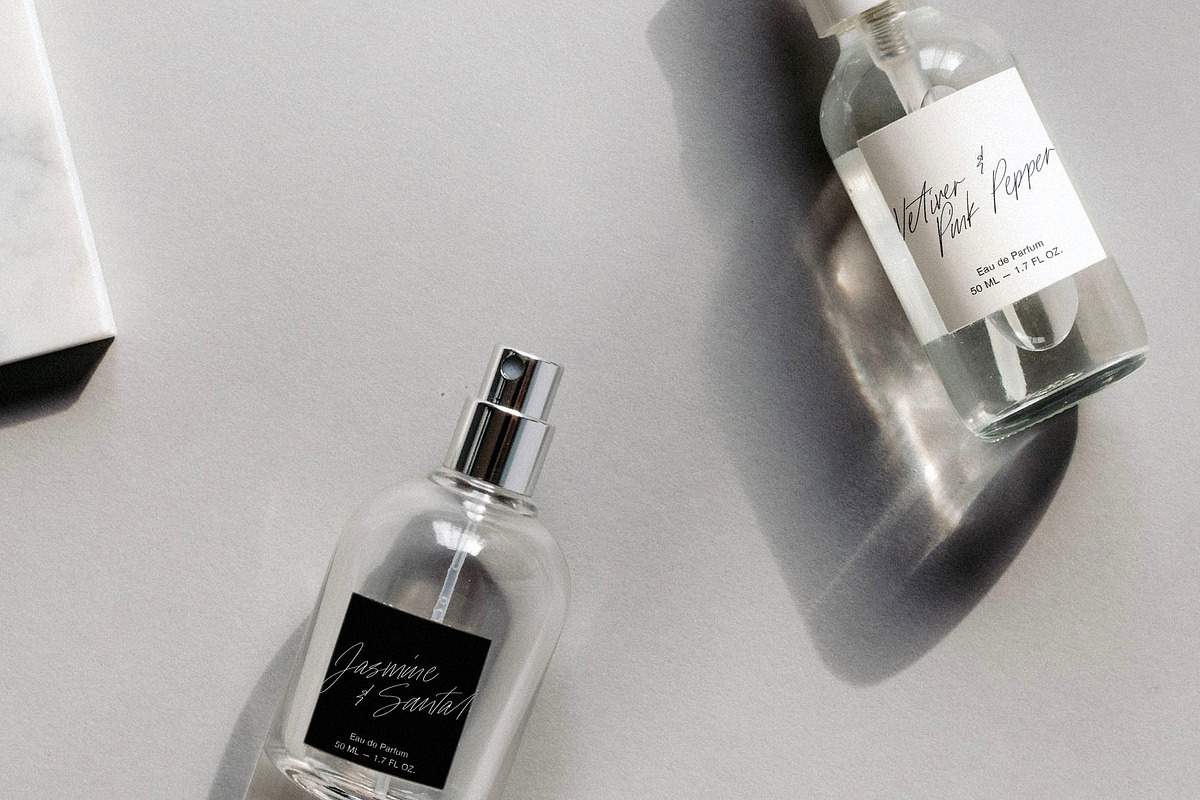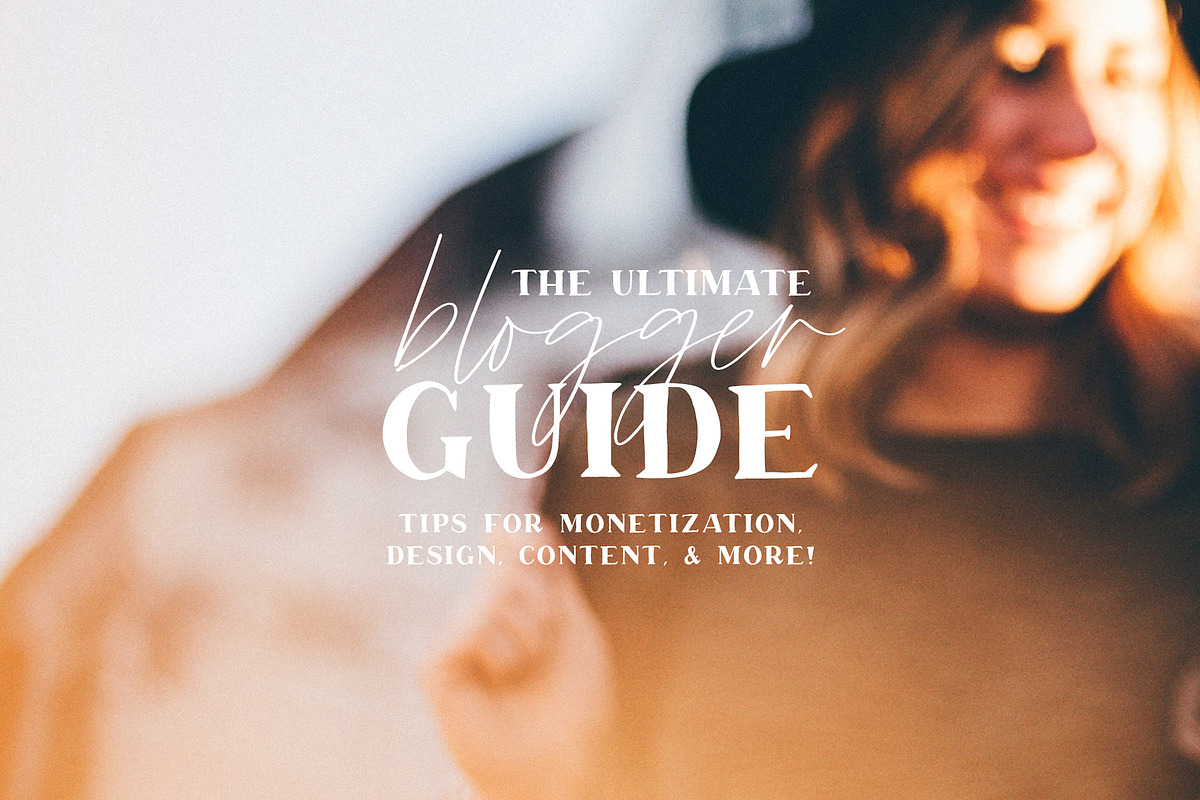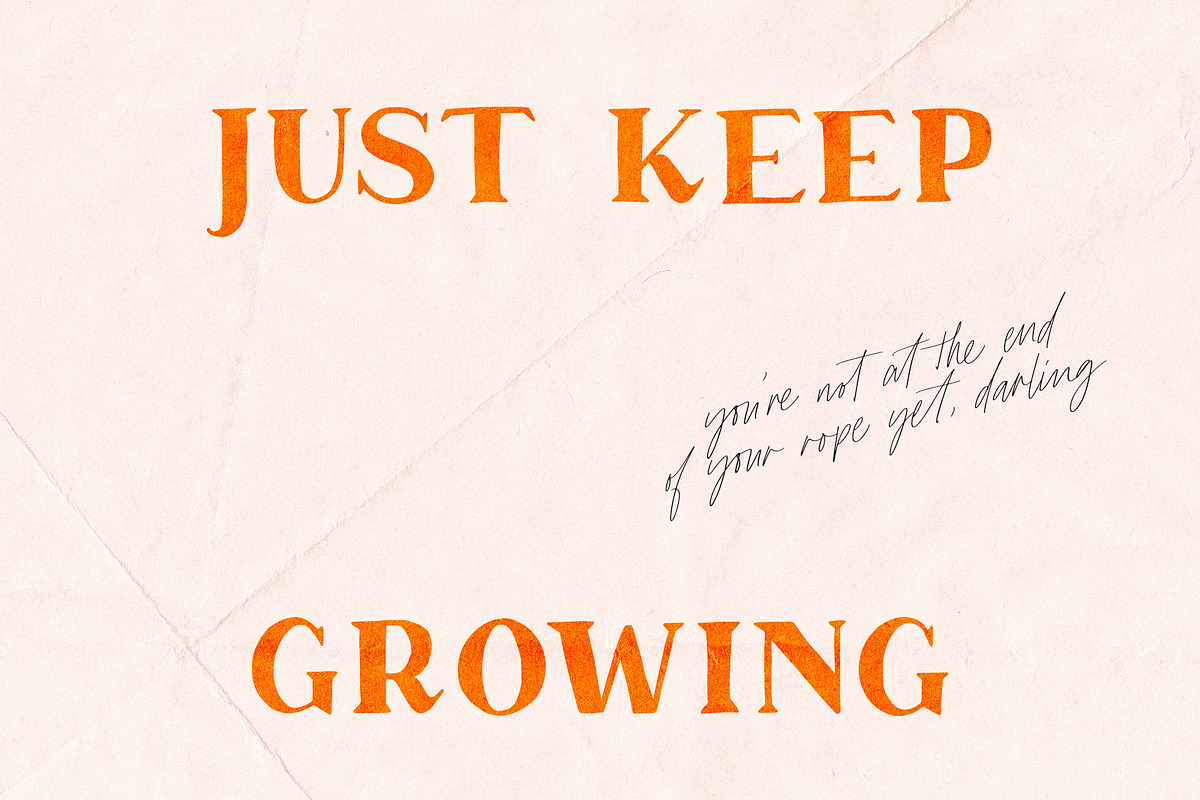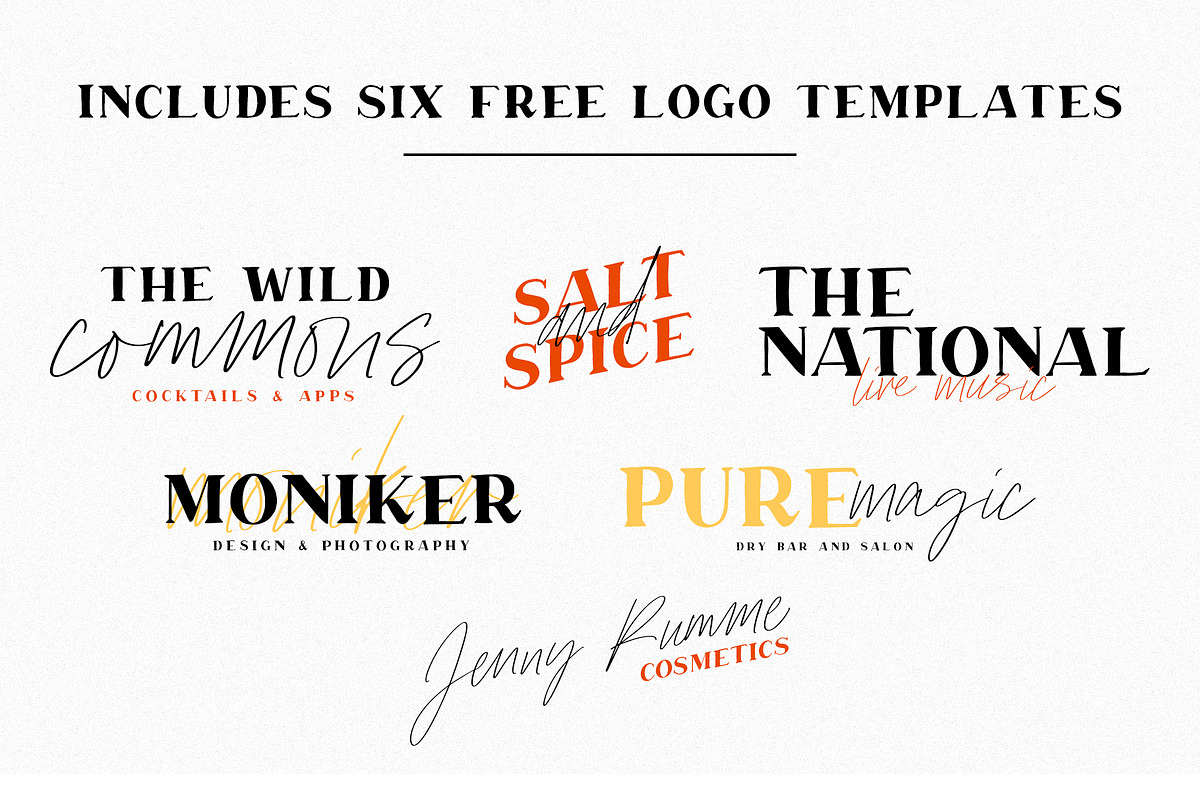
Margo Font Duo w/ 6 Bonus Logos
Margo is a playful font duo that includes a signature script and a hand-drawn serif – already matched up and ready to be used together for your next design!
Margo Script includes:
108 ligatures, which will help make your text look even more hand-written
Alternate letters to help avoid duplicating letters in your words
Foreign language accents & characters for the international designer
Margo Serif includes:
Alternate letters (the lowercase letters function as alternates of each uppercase letter!)
Foreign language accents & characters